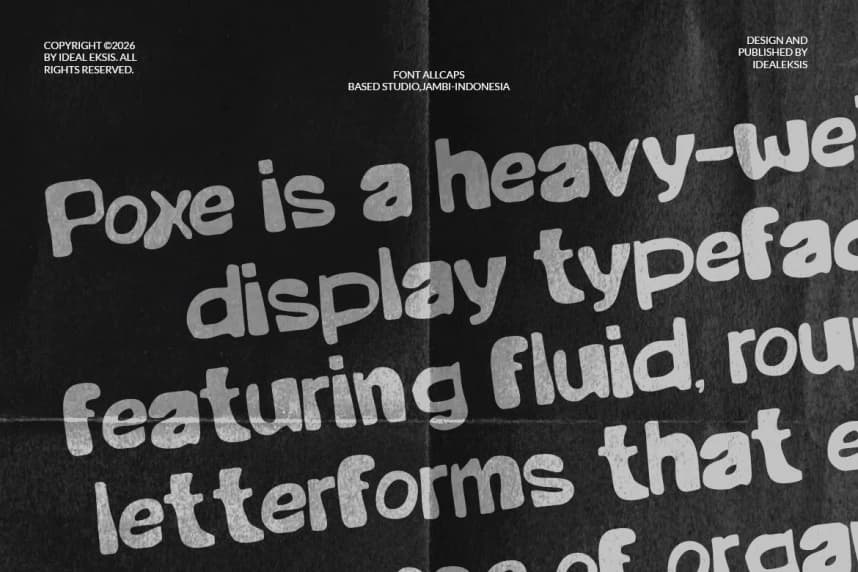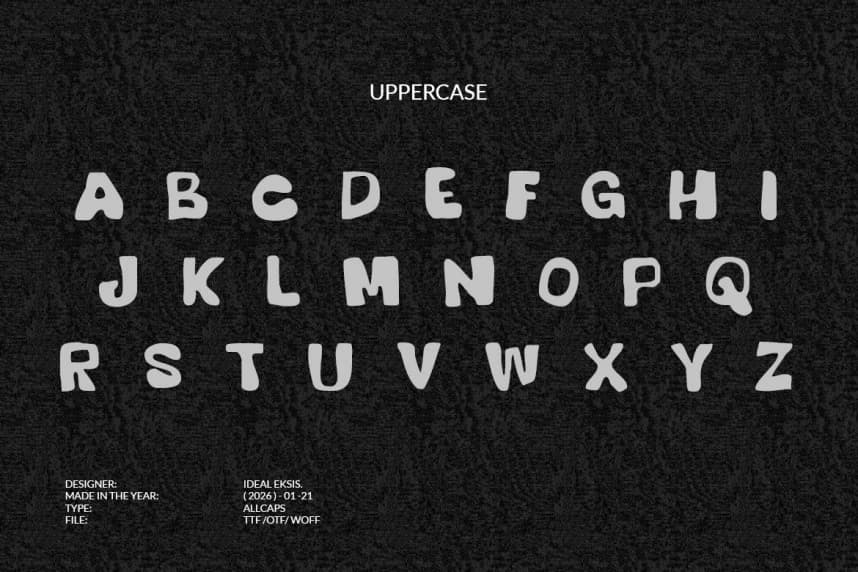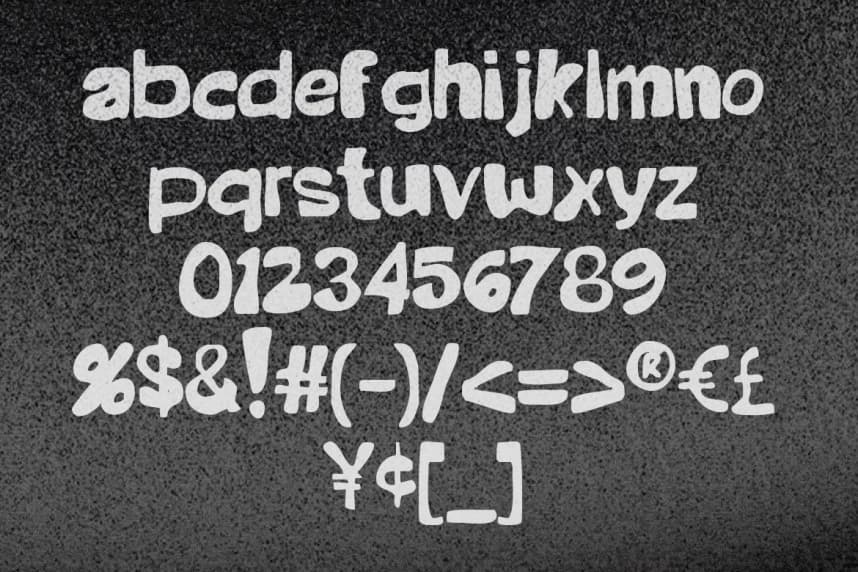
Poxe Font
Poxe Font is a heavy-weight display typeface featuring fluid, rounded letterforms that evoke a sense of organic movement. The strokes are thick and consistent, with soft terminals that eliminate any sharp edges, creating a friendly yet impactful aesthetic.